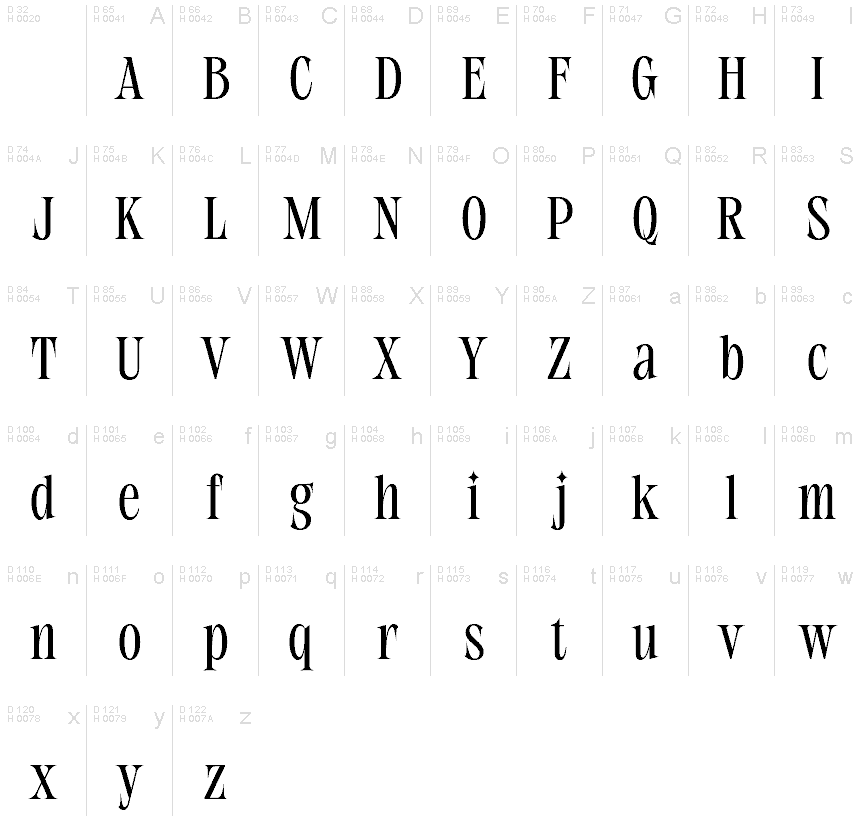
CS Merisa Regular Demo
CS Merisa font is a stylish modern condensed serif font designed by Craft Supply Co. The elegant typeface family is a combination of subtle beauty and pure sophistication conveyed through the decoration of individual characters. Ornamental details along with decorative accents add to its luxurious feel; an overall suitable choice whenever plenty of attention is needed.